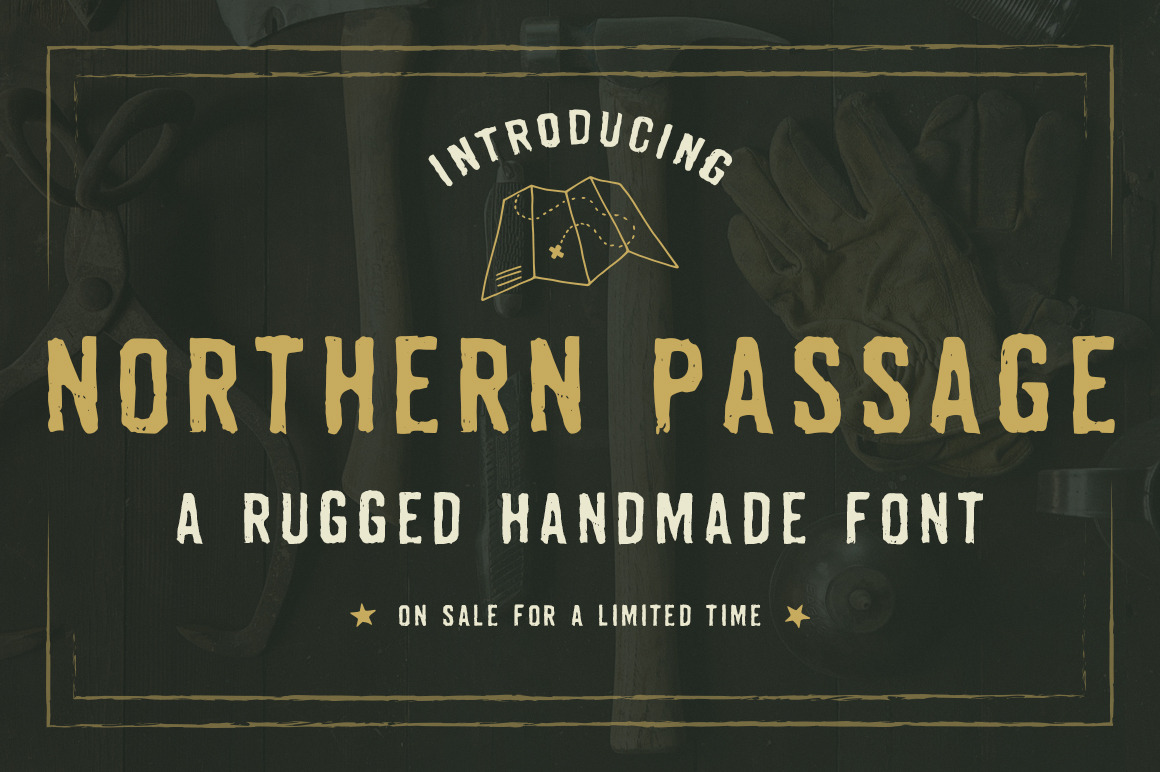
Northern Passage - A Handmade Font
I'm proud to offer my first typeface, Northern Passage. My family and I love to go camping and hiking, which inspired me to create a handmade font with a vintage, weathered appearance like you might see on an old cabin sign. This is an all-caps display font that would be perfect for any design that needs a rustic, woodsy feel.